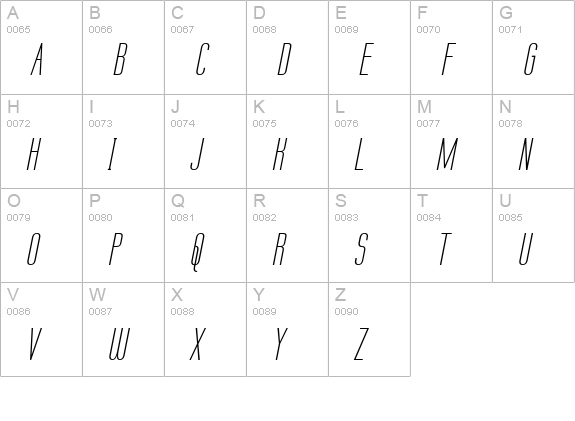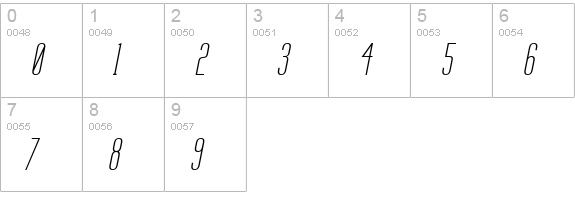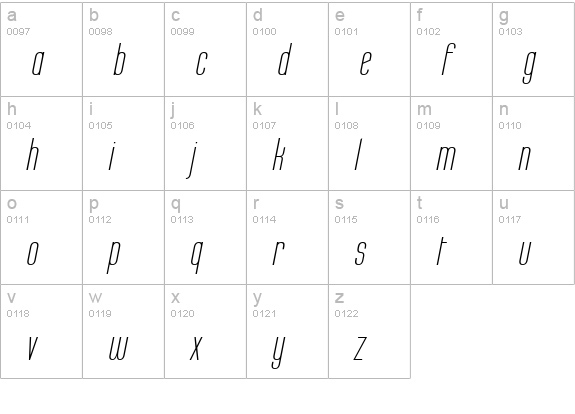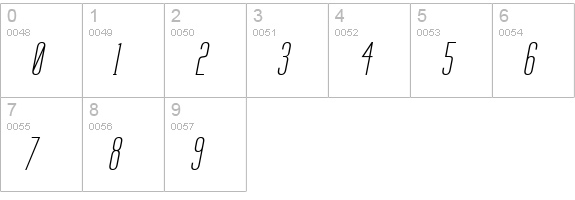
Labtop Italic is a distinctive, italic variant in the Labtop typeface family \xE2\x80\x94 well suited to design and typography projects.
The Labtop Italic font exudes a sleek and sophisticated aesthetic, perfect for adding a touch of elegance to your designs. With its slanted, italicized style, this font is versatile and can be used for a variety of projects, from branding to editorial design. The Labtop Italic font is free to download at FontsMarket.com, making it easily accessible for designers looking to elevate their creations with a touch of class and modernity. Its clean lines and smooth curves make it a standout choice for those seeking a contemporary and stylish typeface. Elevate your designs with Labtop Italic today, and let your creativity shine with this free and effortlessly chic font.